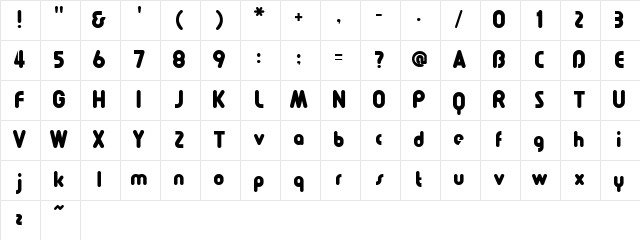
Pollyanna Regular
Design Context for Pollyanna
Pollyanna is a composed and adaptable typeface that performs quietly and consistently across a wide range of design contexts.